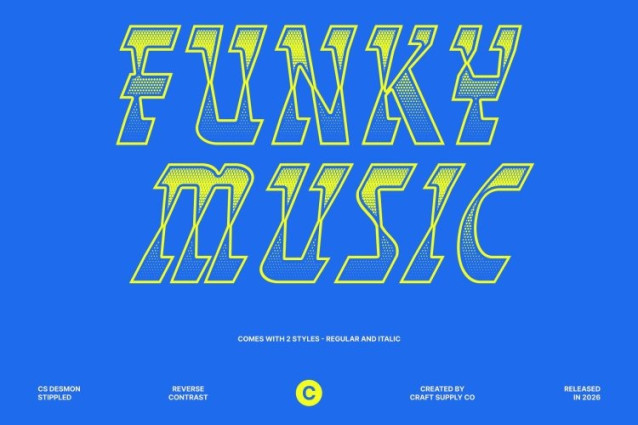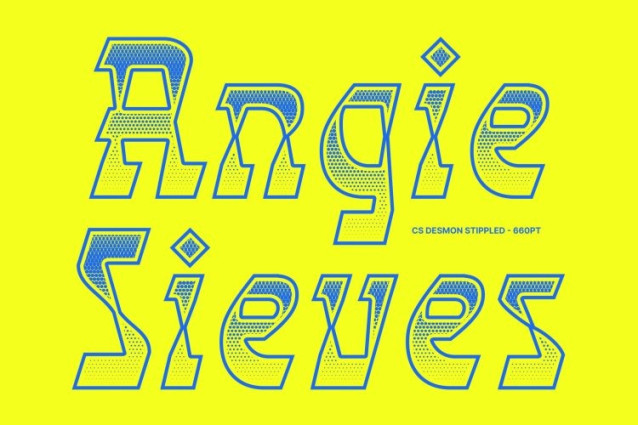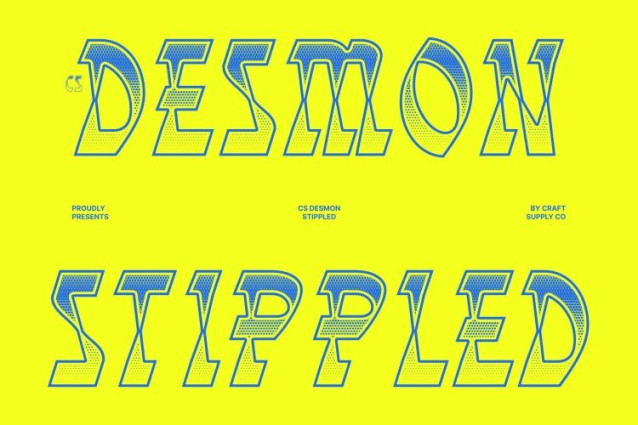
CS Desmon Stippled Font
CS Desmon Stippled Font – This is a bold display font that reimagines traditional serif structure through a distinctive reverse contrast style. In this unique design, the upper portions of the letterforms appear thicker while the lower sections are thinner, creating an unexpected and dynamic visual rhythm. Enhanced with a stippled texture, the font gains a subtle dotted surface that adds depth and a handcrafted feel, giving the unconventional structure an artistic edge.
Funky and Playful Visual Personality
Beyond its reverse contrast structure, this font embraces a funky and expressive design language. Its quirky curves, energetic proportions, and slightly eccentric letterforms create a lively typographic style that feels playful and imaginative. The stippled finish further enhances this personality by adding texture that enriches the bold shapes without overpowering their visual clarity.
Bold Style with Creative Energy
The unusual contrast and vibrant forms make the font highly engaging and memorable. This font brings a sense of movement and fun to typography, making it ideal for projects that want to break away from conventional design and embrace a more expressive aesthetic.
Perfect for Attention-Grabbing Designs
This is ideal for music posters, creative branding, advertising campaigns, editorial headlines, and colorful promotional graphics. By combining reverse contrast structure, funky design elements, and textured stippled detailing, the font delivers a bold typographic voice that feels energetic, unconventional, and visually captivating.